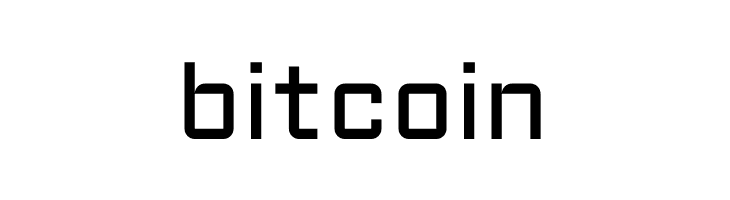
• Aldrich
A modern, geometric sans-serif font with a clean and technical look.
• Aldrich Regular
A modern, geometric sans-serif font with uniform stroke widths and a sleek design.
A bold, modern sans-serif font with strong geometric shapes and thick strokes.
• Alegreya Sans Black Italic
A bold, italicized sans-serif font with a modern and authoritative style.
• Alegreya Sans Bold